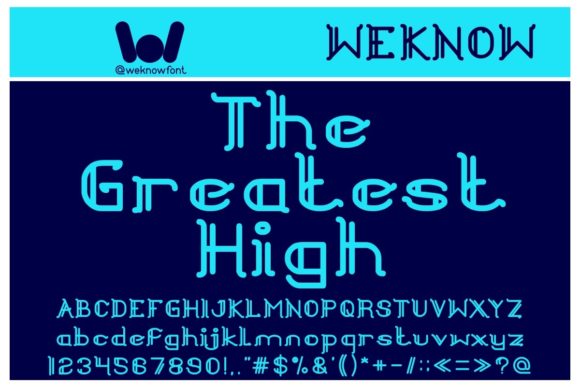
Behold, The Greatest High Font, an alluring display font designed to set your creations apart. Its enchanting aura is sure to captivate, drawing eyes and hearts alike. Bask in its unique charm, a blend of elegance and boldness, seamlessly weaving stories through visual artistry.
Visualize your logos, apparel designs, posters, music covers, and movie titles adorned with The Greatest High. Its presence commands attention, captivating audiences with a story woven into every stroke. Its versatility knows no bounds, allowing your imagination to flourish and creativity to soar.
With The Greatest High Font, your message will resonate with a power and eloquence like never before. Its sharp angles dance with graceful curves, creating a visual harmony that is both captivating and memorable. Let your words take center stage, adorned in a font that elevates their impact, turning simple text into an unforgettable experience.
Journey into the realm of limitless possibilities with The Greatest High Font. Embrace the opportunity to make a striking impression, leaving an indelible mark on the hearts and minds of your audience. Unlock the potential of this extraordinary display font and unleash the full splendor of your creative vision.